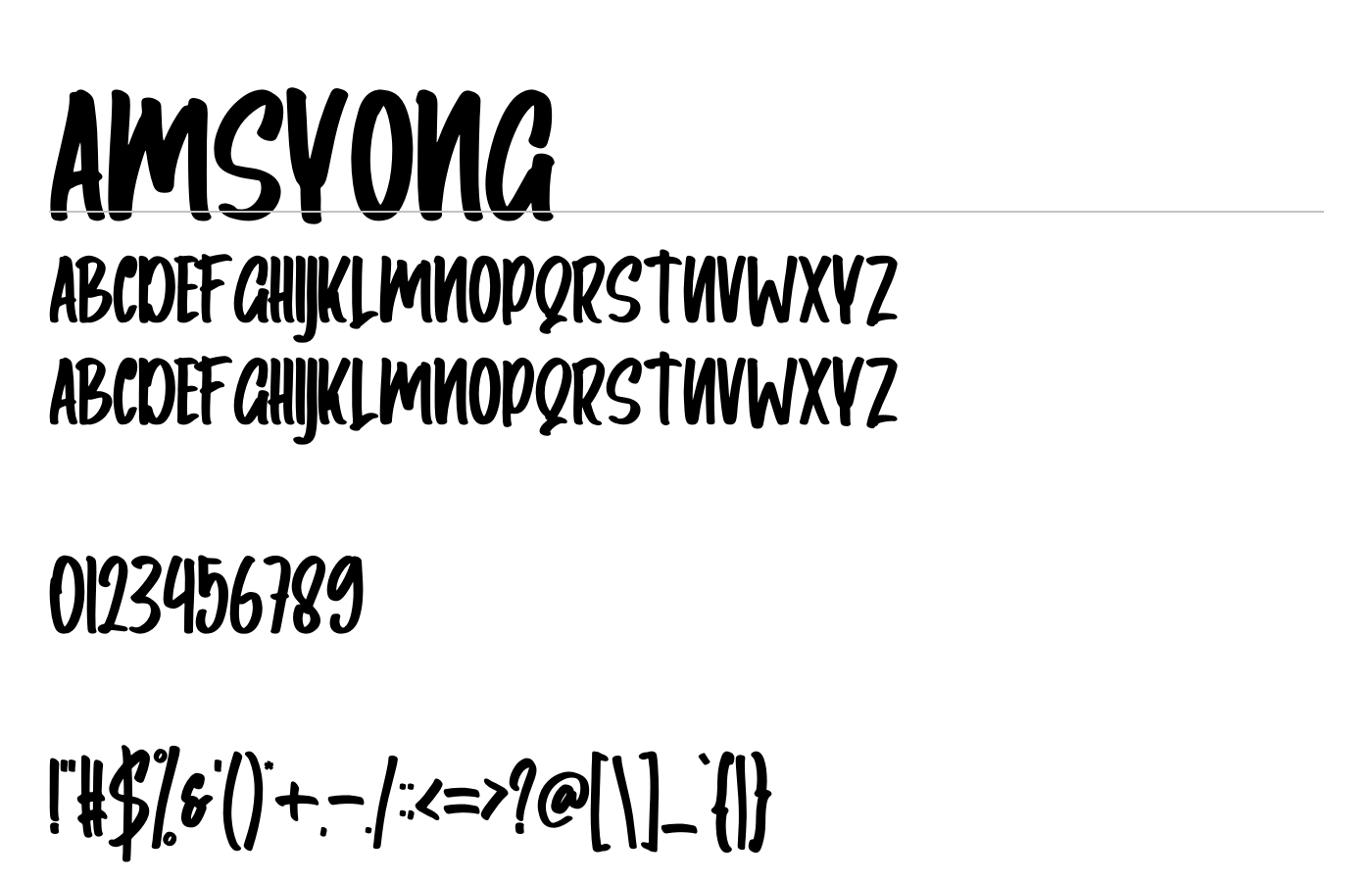
Amsyong is a bold, playful handwritten sans serif font with a casual and lively personality. Its tall, narrow letterforms and irregular strokes give it an energetic, informal feel perfect for youthful, fun branding or creative projects. This font works well in headlines, logos, and packaging where a friendly, eye-catching style is desired.
Amsyong Font
About Amsyong Font